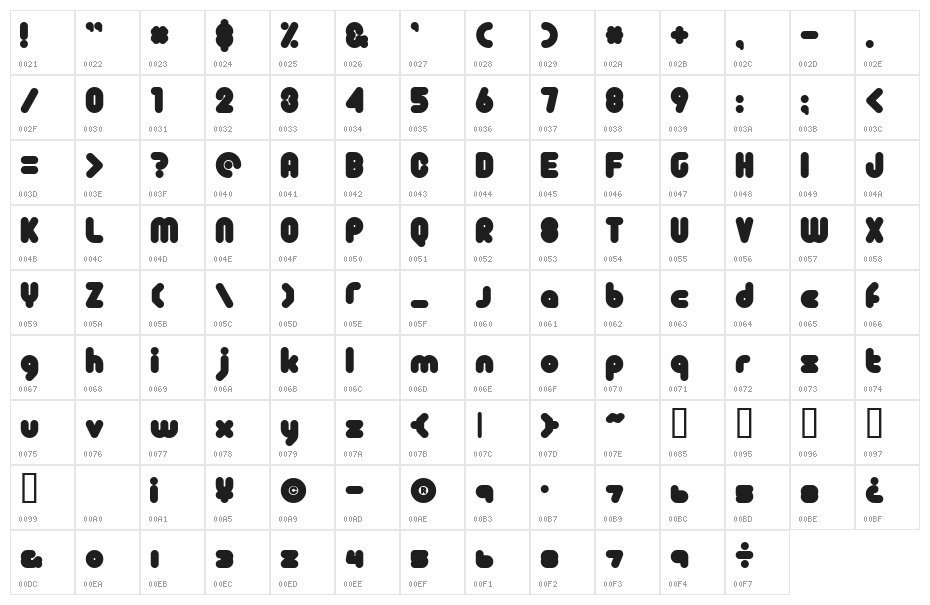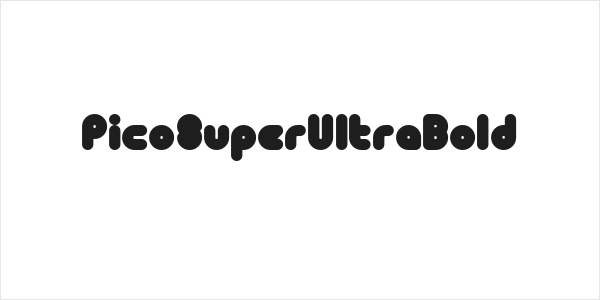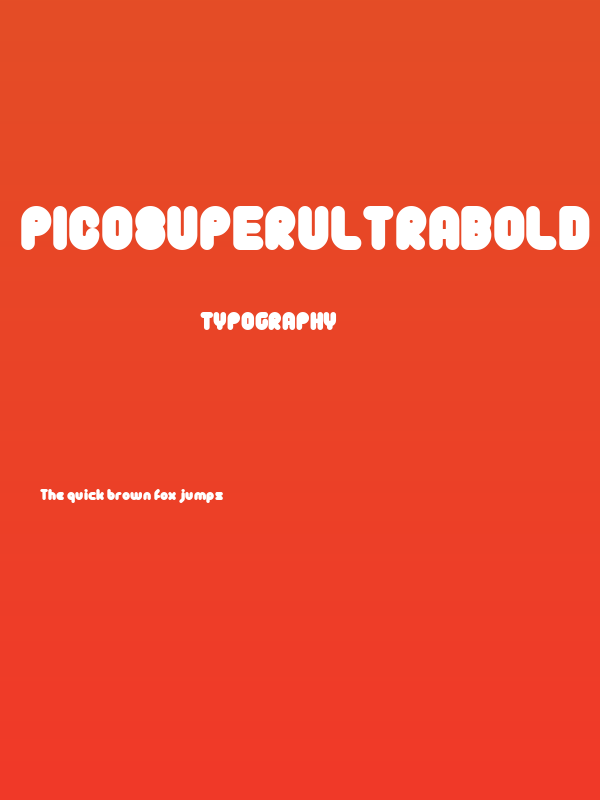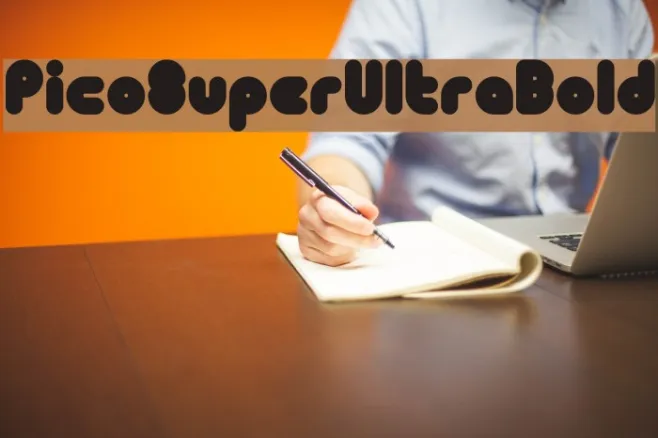
PicoSuperUltraBold Font
PicoSuperUltraBold Description
This font features a bold and playful design with rounded, bubble-like characters that convey a sense of fun and creativity. The letters are thick and uniformly filled, creating a strong visual impact. The rounded edges and consistent stroke width give it a friendly and approachable appearance. The font maintains a consistent weight throughout, enhancing its readability despite its decorative style. It includes a full set of uppercase and lowercase letters, numbers, and a variety of special characters, making it versatile for different design needs.
| Overall Style | Playful, Modern |